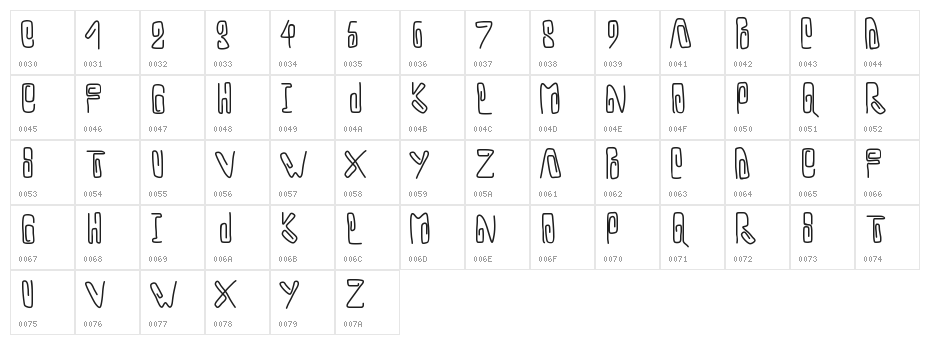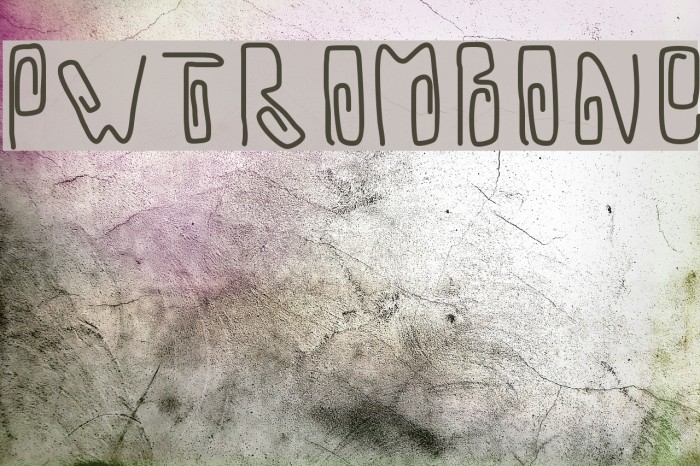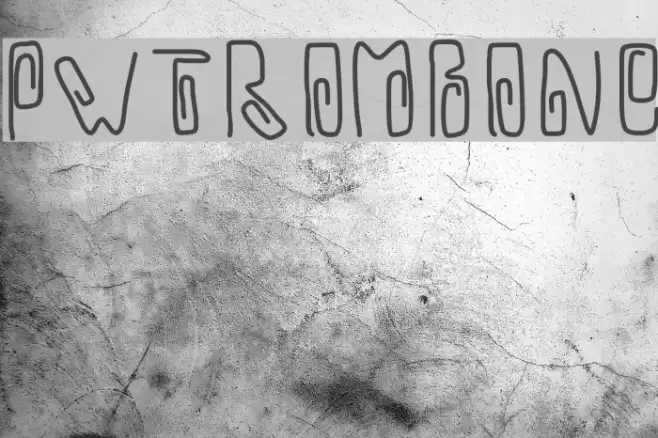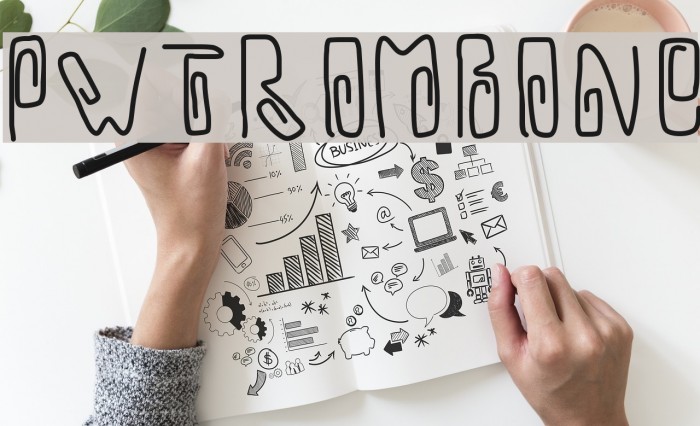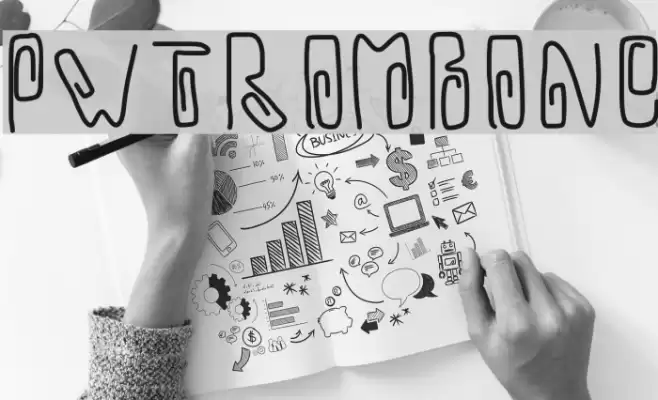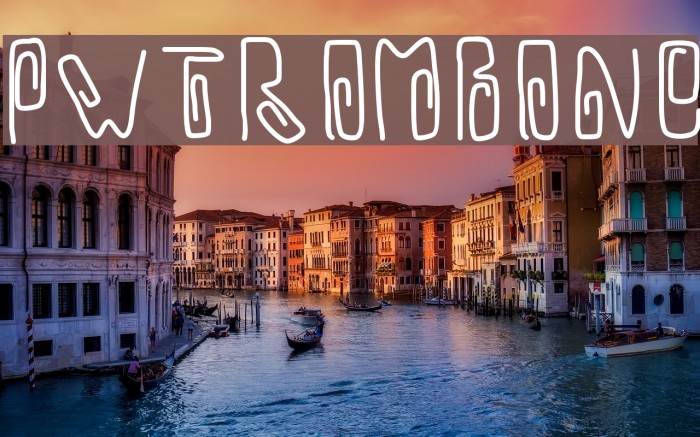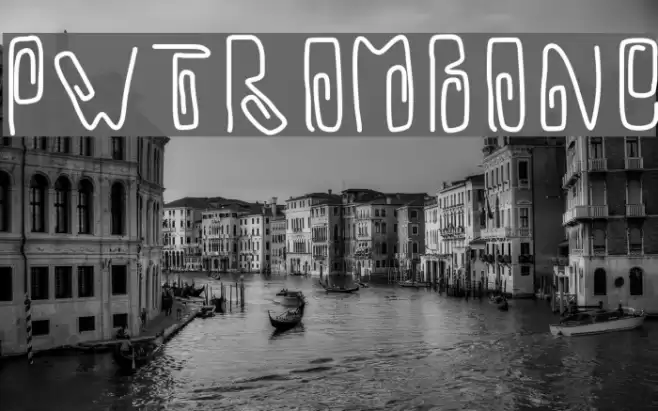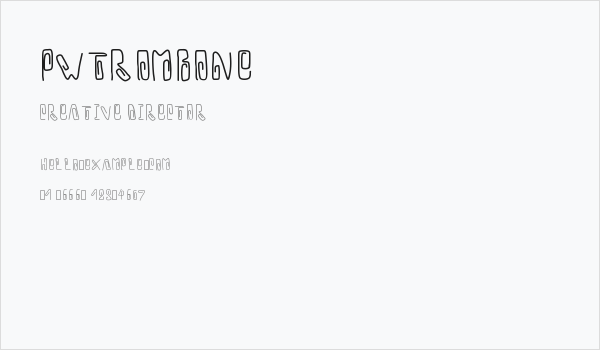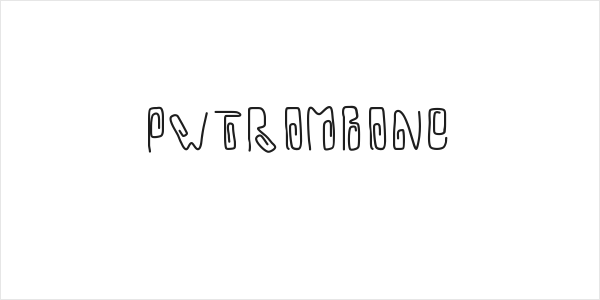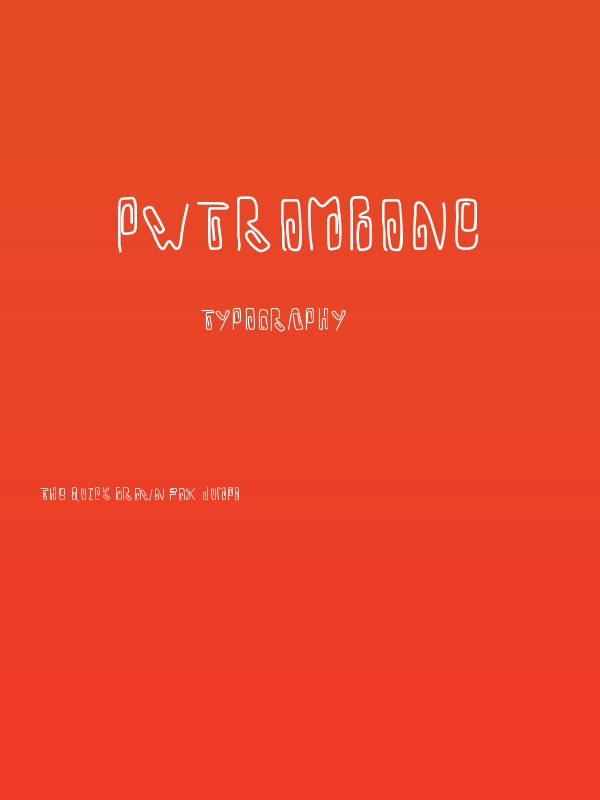
PWTrombone Font
PWTrombone Description
This font features a unique and playful design, characterized by its tubular and winding letterforms that resemble the curves of a trombone. Each character is crafted with a continuous line that loops and bends, creating a sense of movement and rhythm. The uppercase and lowercase letters maintain a consistent style, with the uppercase being slightly more structured. Numbers and special characters follow the same design principles, ensuring a cohesive look across all elements. The font's distinct style makes it stand out, offering a modern twist on traditional letterforms.
| Proposed Projects | Ideal for music-themed posters, playful branding, children's books, and creative packaging designs. |